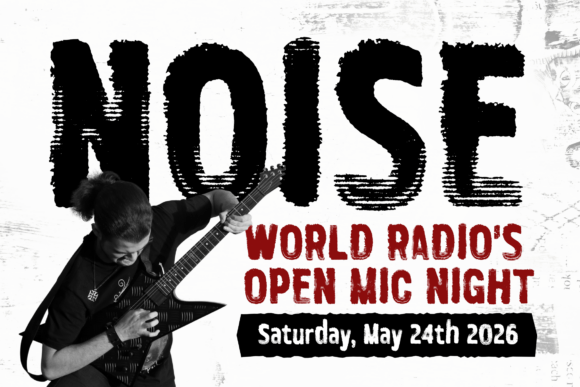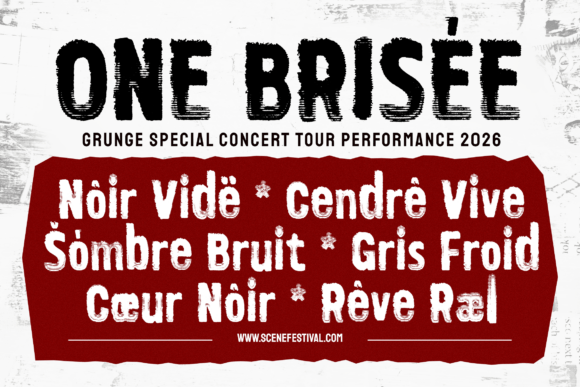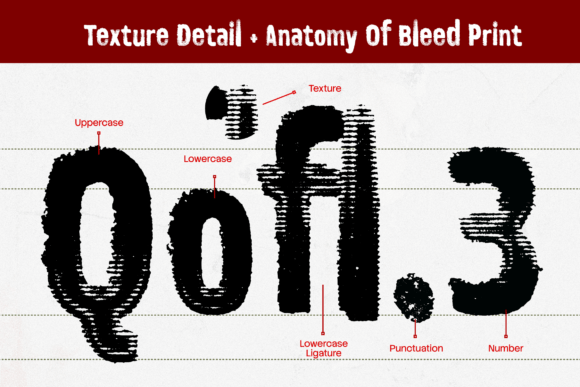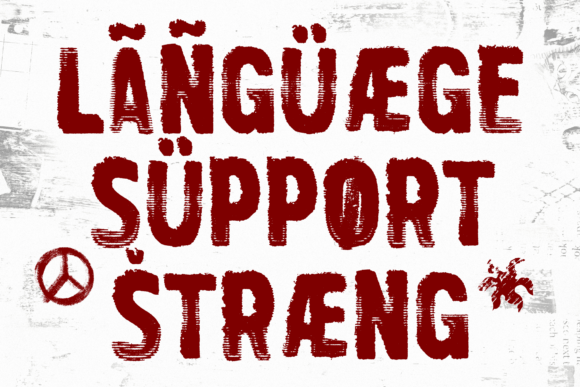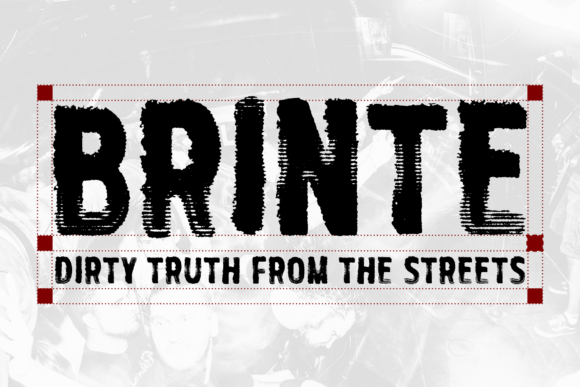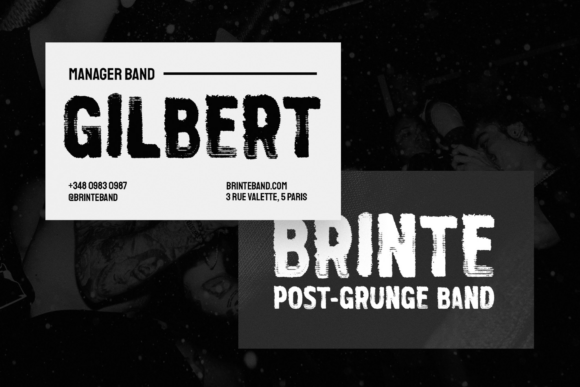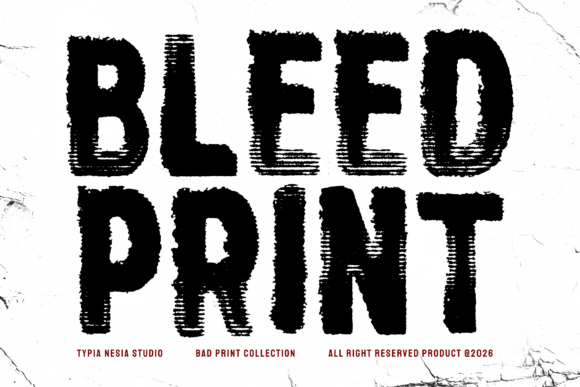
Bleed Print Font: Unleash Your Design’s Raw and Authentic Edge
Are you tired of sleek and polished fonts that lack character? Do you want to add a touch of ruggedness and authenticity to your designs? Look no further than Bleed Print, a bold distressed sans serif font that’s inspired by vintage ink bleed, worn stamps, and imperfect print textures.
The Inspiration Behind Bleed Print
Bleed Print is a font that celebrates the imperfections of old printing techniques. Its design is rooted in the aesthetic of vintage ink bleed, worn stamps, and rough print textures. The result is a typeface that’s raw, authentic, and full of character. With its rough edges, grunge details, and bold letterforms, Bleed Print is perfect for designers who want to add a touch of ruggedness and masculinity to their work.
Key Features of Bleed Print
- Bold and Distressed: Bleed Print is a bold font that’s designed to make a statement. Its distressed effect gives it a worn, vintage look that’s perfect for designs that need a touch of authenticity.
- Rough Edges and Grunge Details: The font’s rough edges and grunge details add to its rugged and masculine aesthetic. These imperfections make Bleed Print feel like a truly handmade font.
- Sans Serif Design: Bleed Print is a sans serif font, which makes it perfect for designs that need a clean and modern look. However, its distressed effect gives it a unique twist that sets it apart from more traditional sans serif fonts.
- Retro and Vintage-Inspired: Bleed Print is a font that’s deeply rooted in the aesthetic of old printing techniques. Its vintage-inspired design makes it perfect for projects that need a touch of nostalgia and authenticity.
Use Cases for Bleed Print
Bleed Print is a versatile font that can be used in a wide range of design projects. Here are some use cases where Bleed Print really shines:
- Logo Design: Bleed Print’s bold and distressed design makes it perfect for logo design. Its rugged aesthetic can help your brand stand out and give it a unique edge.
- Labels and Badges: The font’s vintage-inspired design makes it perfect for labels and badges. Use Bleed Print to create custom labels and badges that look like they’ve been worn and weathered.
- Posters and Branding: Bleed Print’s bold and eye-catching design makes it perfect for posters and branding projects. Use the font to create bold and attention-grabbing headlines that demand attention.
- Packaging and Vintage-Inspired Projects: Bleed Print’s distressed effect gives it a unique and authentic look that’s perfect for packaging and vintage-inspired projects. Use the font to add a touch of nostalgia and character to your designs.
How to Use Bleed Print in Your Designs
Using Bleed Print in your designs is easy. Here are some tips to get you started:
- Experiment with Different Sizes: Bleed Print is a bold font, but it can be used in a variety of sizes. Experiment with different sizes to find the one that works best for your design.
- Pair it with Other Fonts: Bleed Print can be paired with other fonts to create a unique and interesting contrast. Try pairing it with a clean and modern sans serif font for a bold and eye-catching look.
- Use it for Headlines and Titles: Bleed Print is perfect for headlines and titles. Use it to create bold and attention-grabbing text that demands attention.
Bleed Print is a bold and distressed sans serif font that’s perfect for designers who want to add a touch of ruggedness and authenticity to their work. Its vintage-inspired design and distressed effect make it perfect for a wide range of design projects, from logo design and labels to posters and branding. With its rough edges, grunge details, and bold letterforms, Bleed Print is a font that’s sure to make your designs stand out. So why settle for a sleek and polished font when you can have a raw and authentic one? Try Bleed Print today and unleash your design’s full potential.